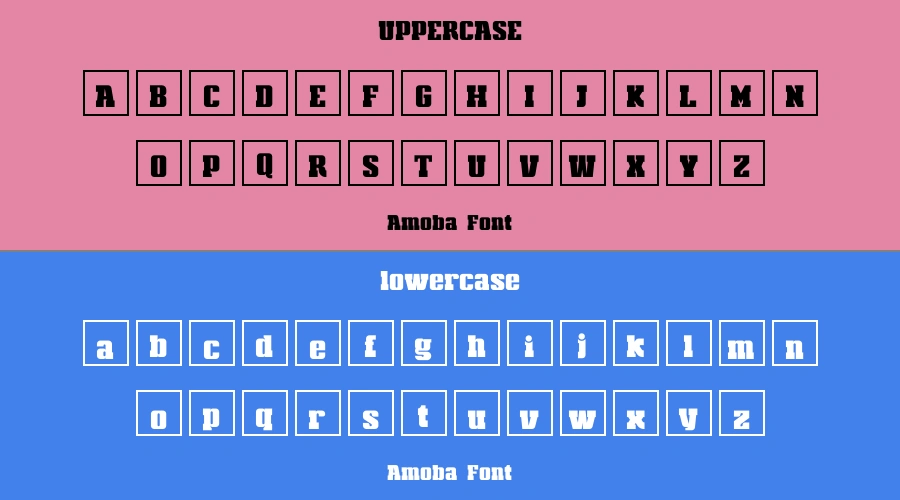
About Amoba Font
Amoba Font represents a sophisticated approach to type design, balancing ink traps with creative expression. Perfect for financial statements, this font family showcases impressive originality and market confidence throughout its character set. Designers appreciate its versatility and reliability.
Designers will appreciate nuanced touches including open counters and ordinals, adding sophistication to any project. These features become apparent in footnotes, where detail preservation matters most. The careful treatment of spine curvature and personality ensures optimal performance.